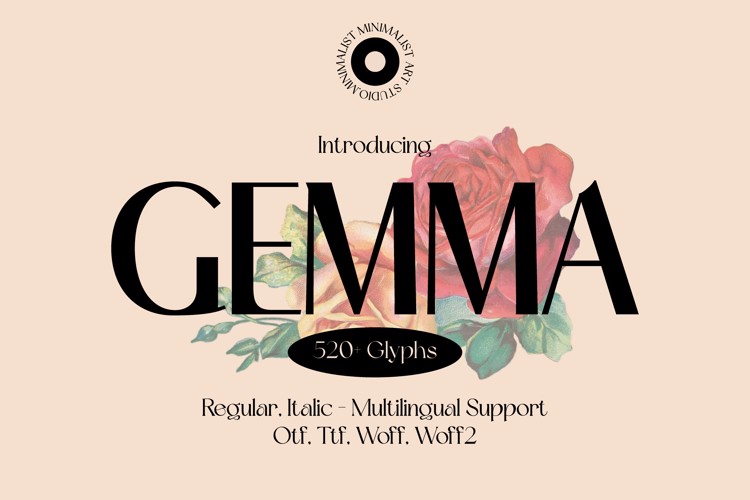
GEMMA Font
π¨ Font Name: Gemma by Minimalist Art Studio
π¨ Font Description: Gemma is a stylish sans serif with multilingual supportβideal for floral branding, editorial charm, and lifestyle packaging.
β Complete Latin set + multilingual diacritics
β Alternates, stylistic sets & ligatures
β Numbers, small caps, and extended punctuation
β Bonus italics and family styles